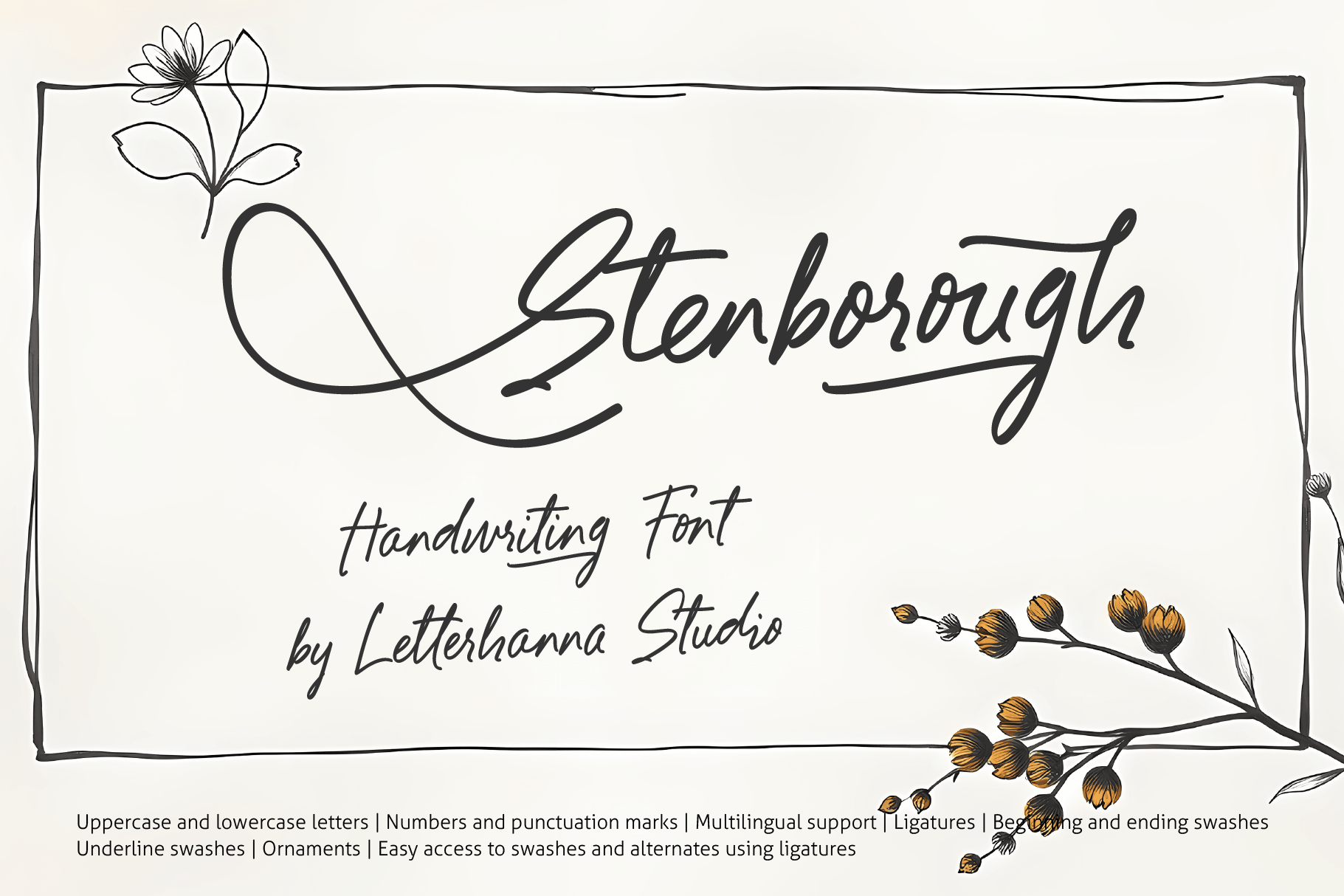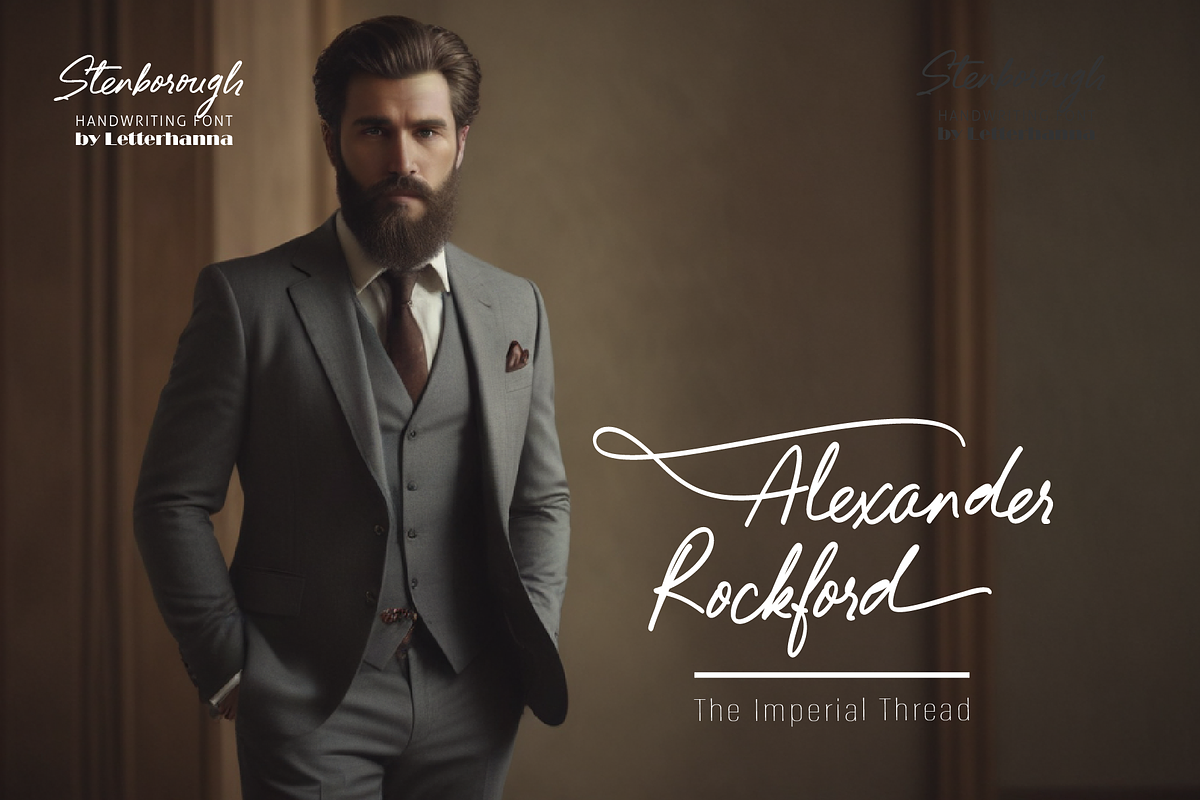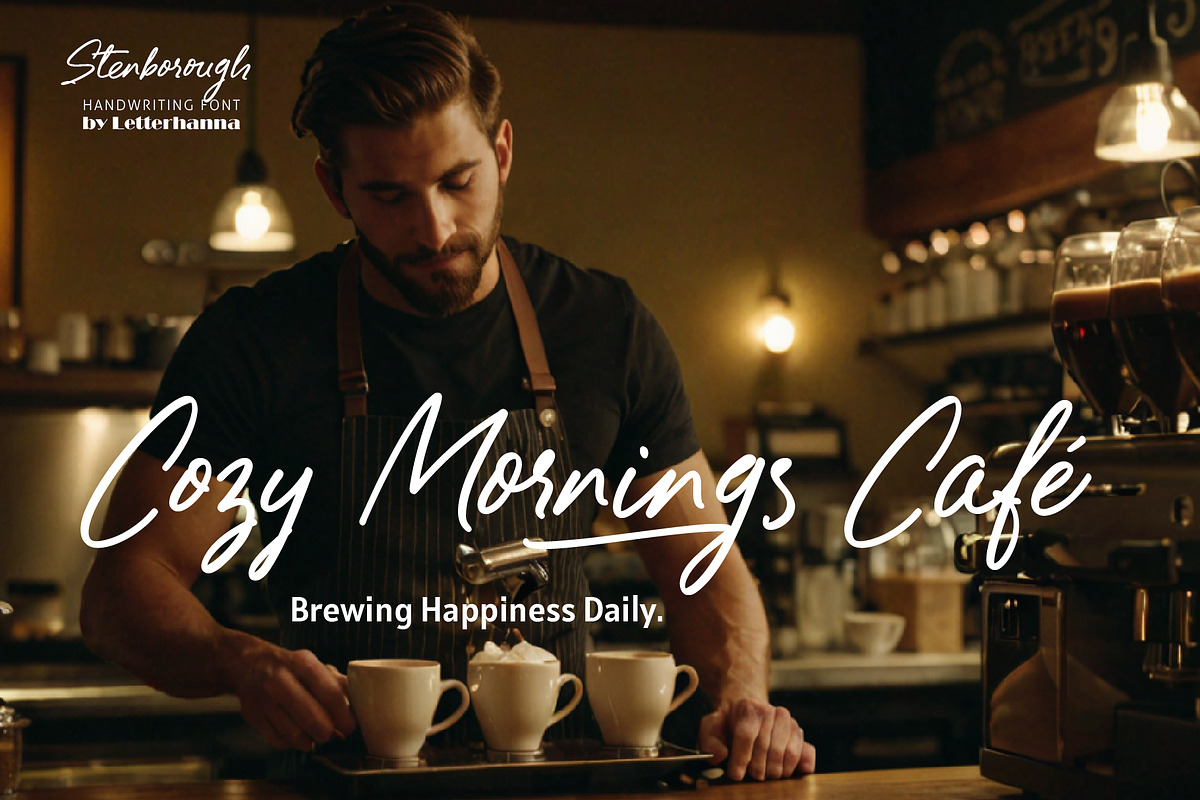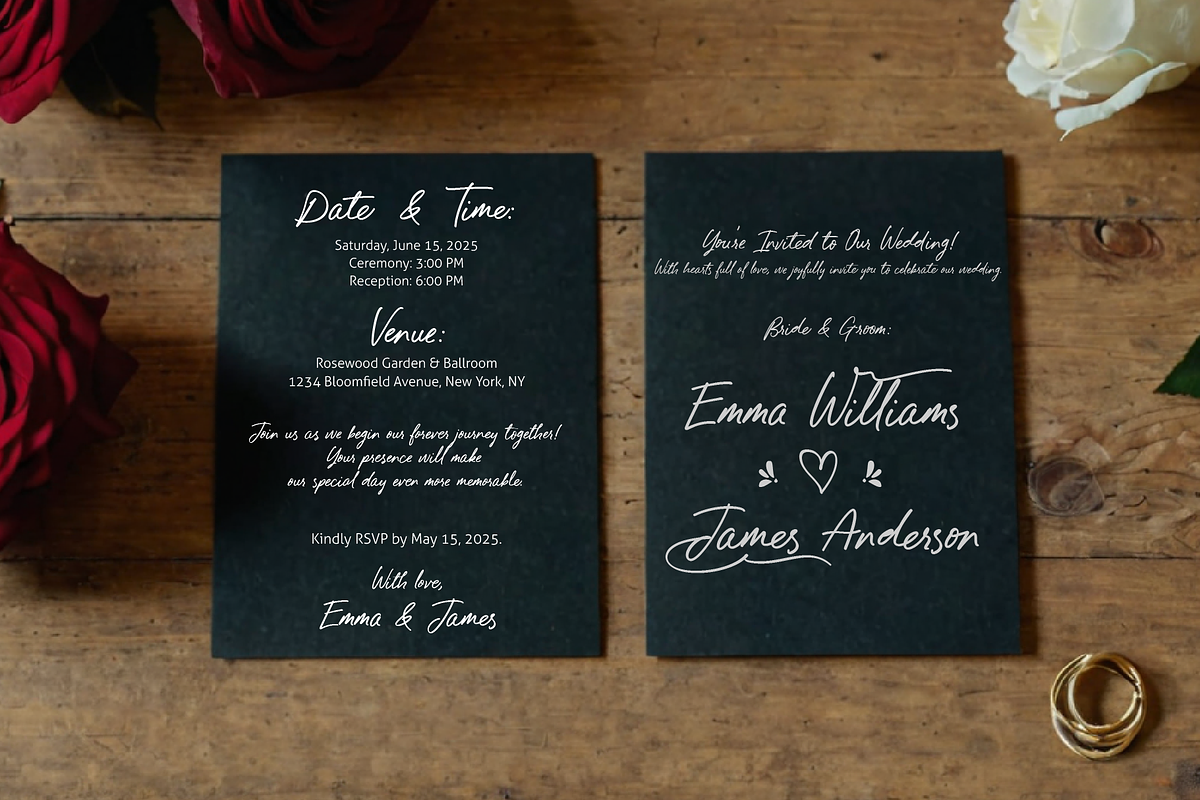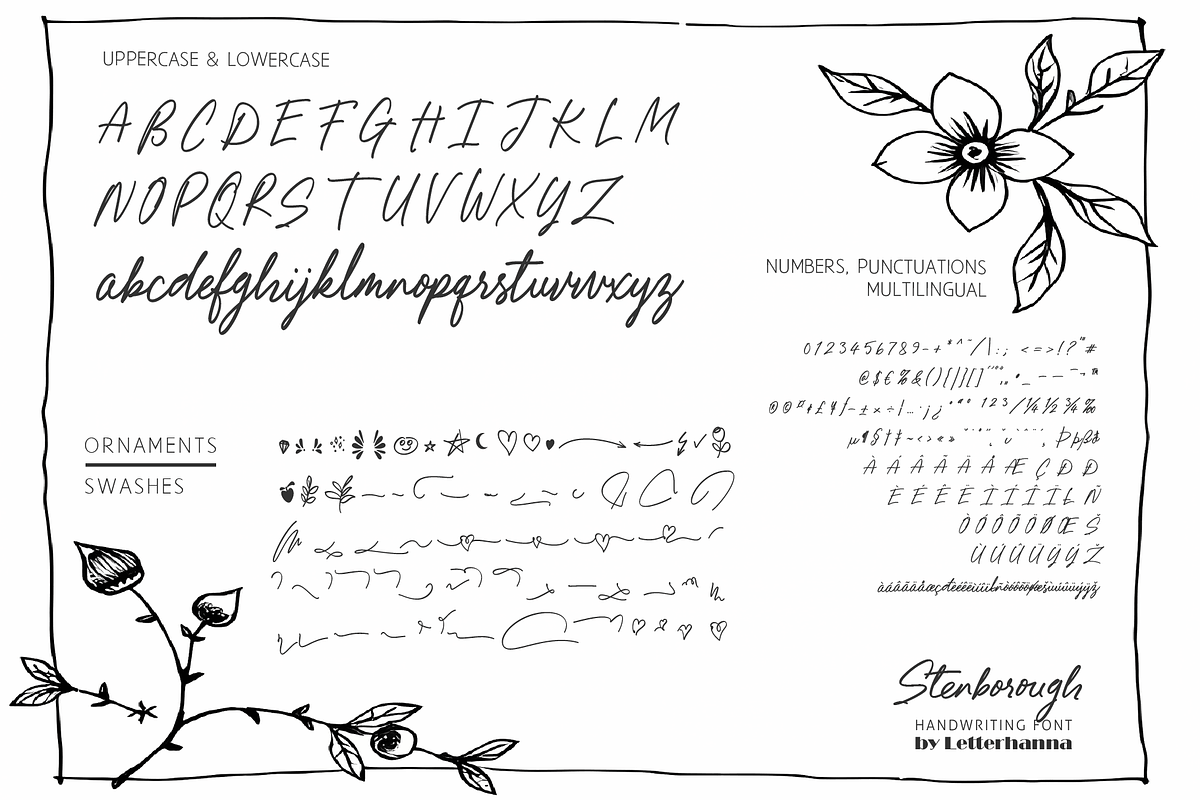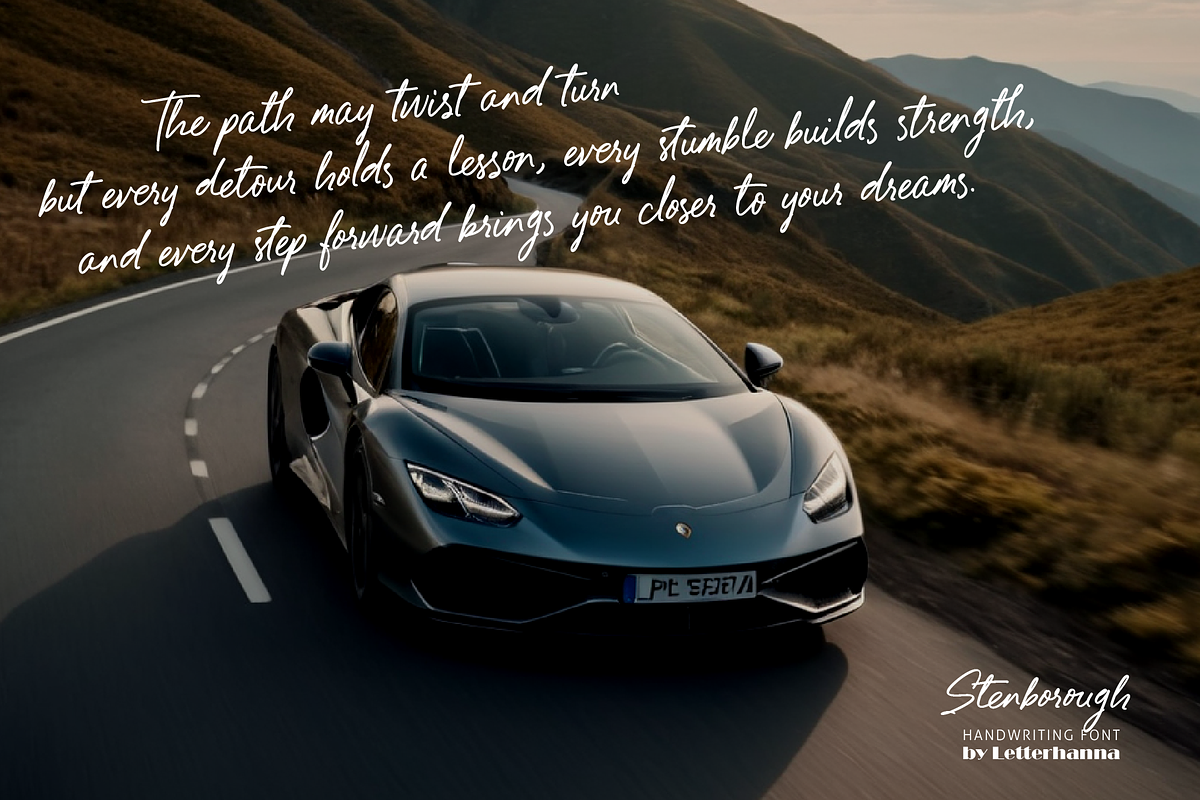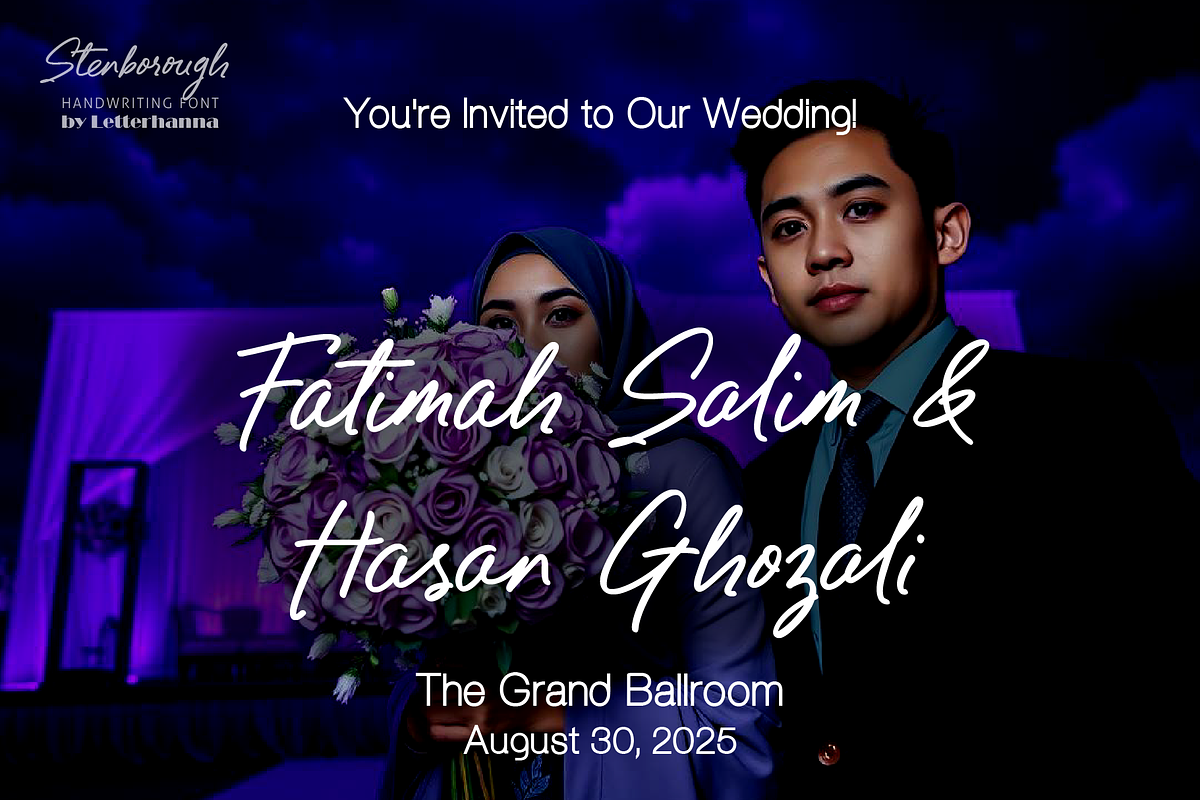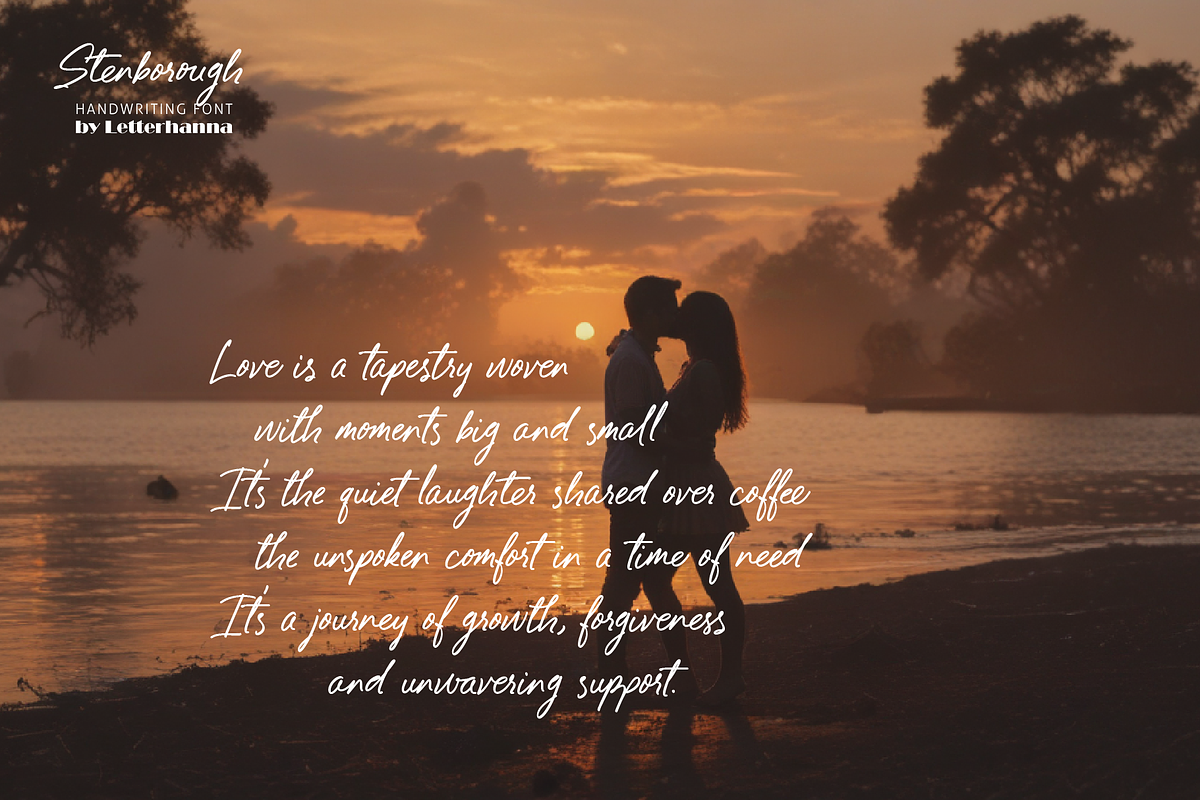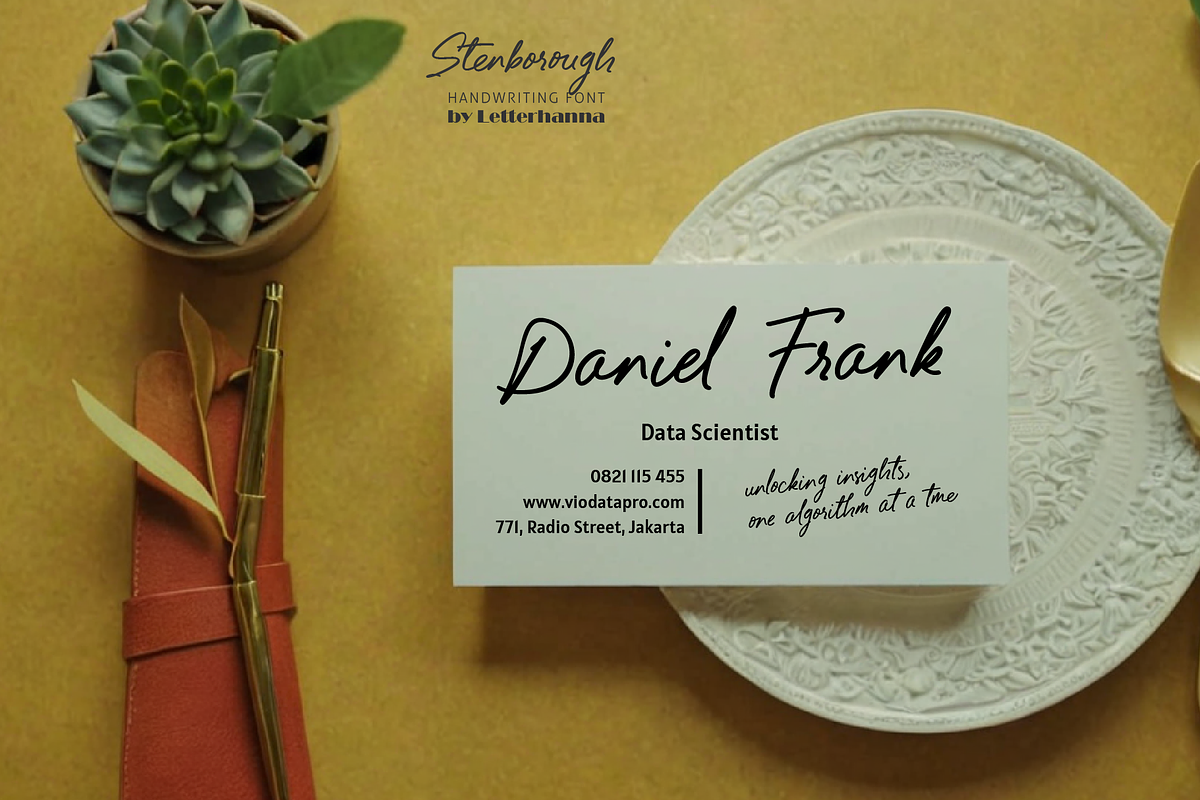
Stenborough Handwritten Font
Meet Stenborough, a sophisticated handwriting script font that exudes charm and artistry. Designed for those who appreciate the beauty of calligraphy, Stenborough offers a natural yet refined flow, making it perfect for branding, invitations, packaging, and editorial design.
With an abundance of stylistic alternates, swashes, and ligatures, this font allows endless customization to elevate your typography. Whether you're crafting a luxurious logo or an eye-catching headline, Stenborough provides versatility and elegance in every stroke.
Easy Access to Glyphs and Swashes
Accessing Swashes and Ornaments
Underline Swashes: Use a hyphen symbol "-" followed by a number between 1 and 50. For example, type "-3", "-22", or "-17" to get various underline swashes.
Head/Beginning Swashes: Use a dollar sign "$" followed by a number between 1 and 15. For example, type "$2" or "$8" to get different head/beginning swashes.
Tail/Ending Swashes: Use a percent sign "%" followed by a number between 1 and 33. For example, type "%3" or "%15" to get various tail/ending swashes.
Ornaments: Use an "at" symbol "@" followed by a number between 1 and 21. For example, type "@4" or "@13" to get different ornament.
Uppercase and lowercase letters Numbers and punctuation marks Multilingual support Ligatures Beginning and ending swashes Underline swashes Ornaments Easy access to swashes using ligatures